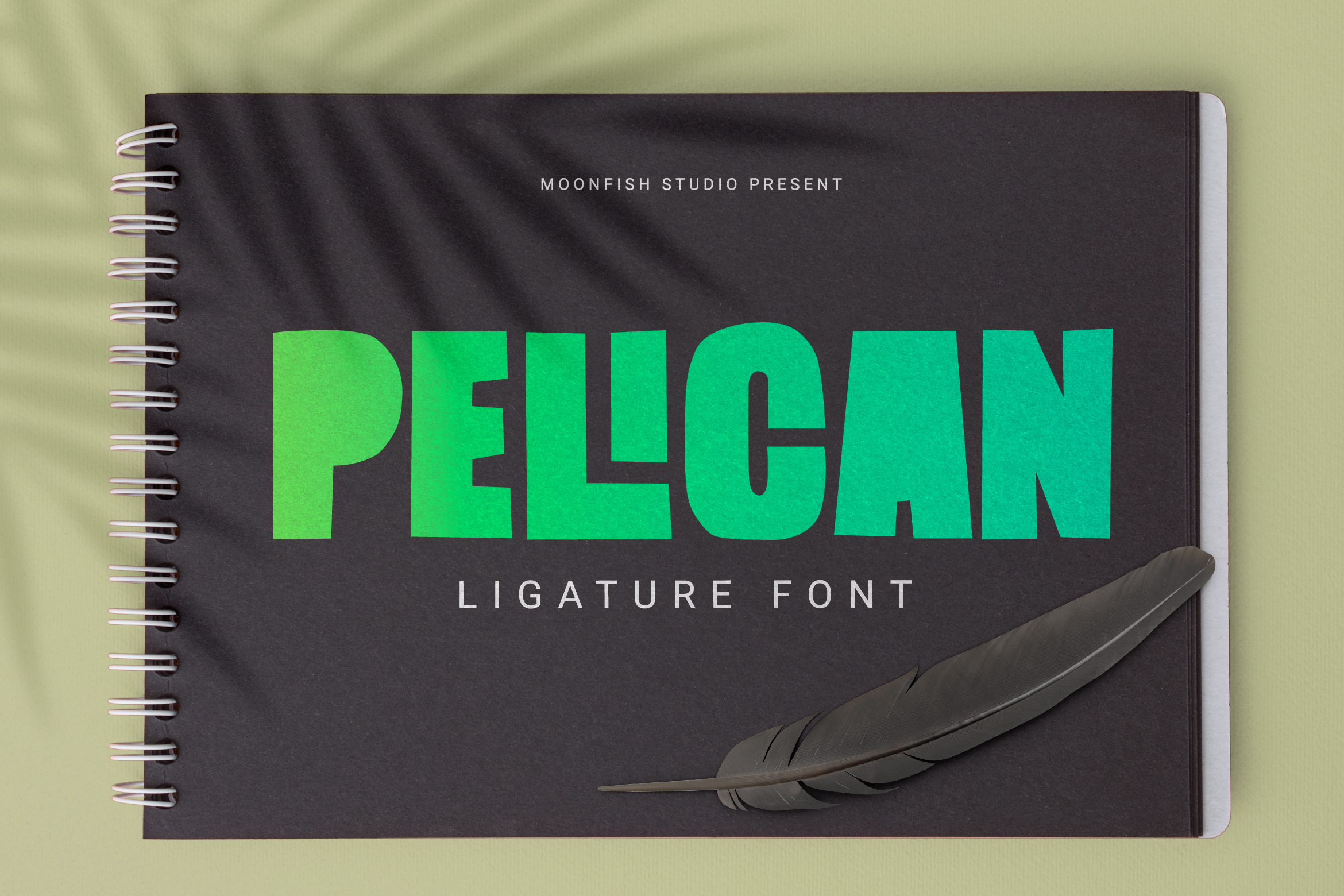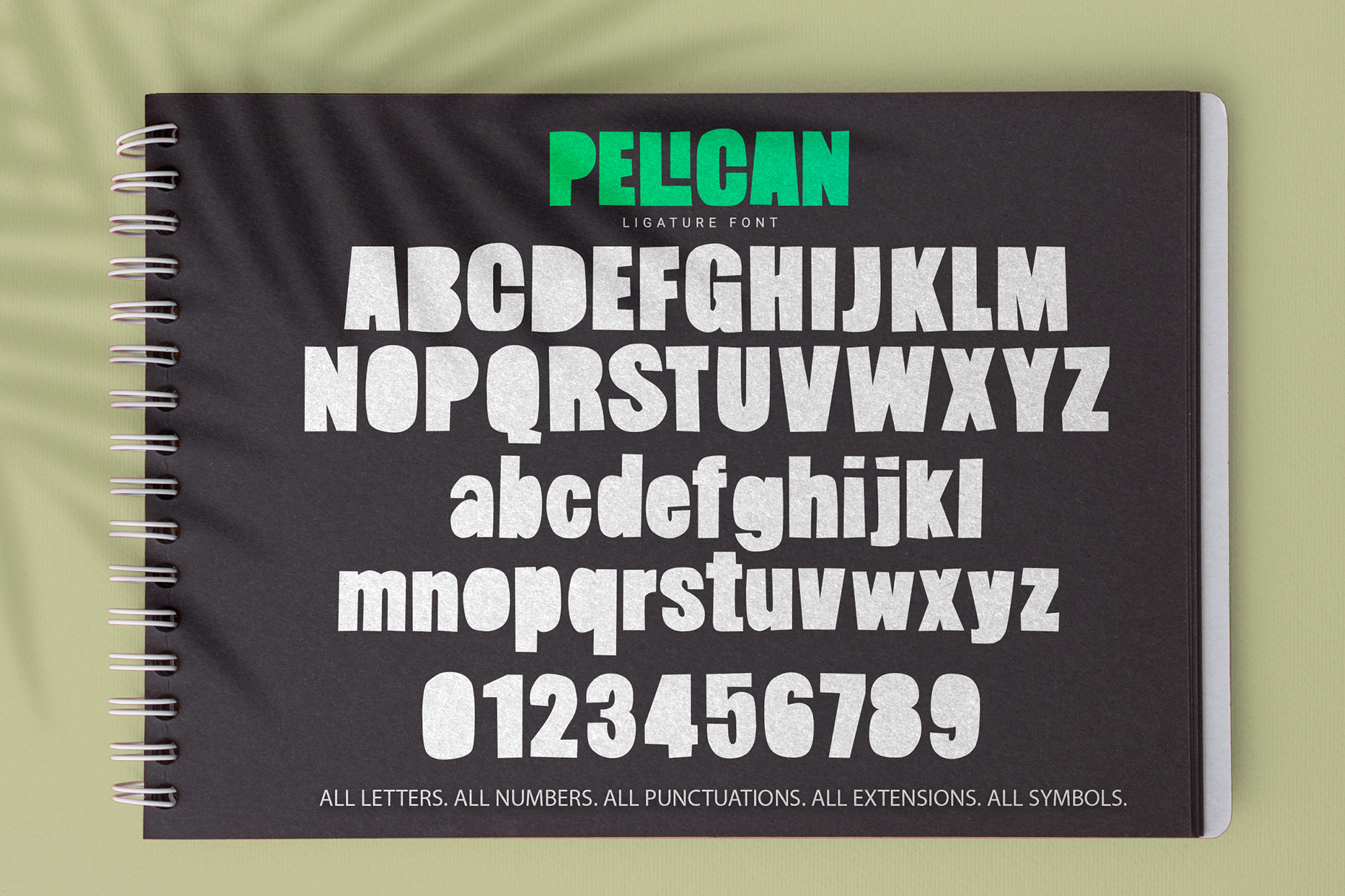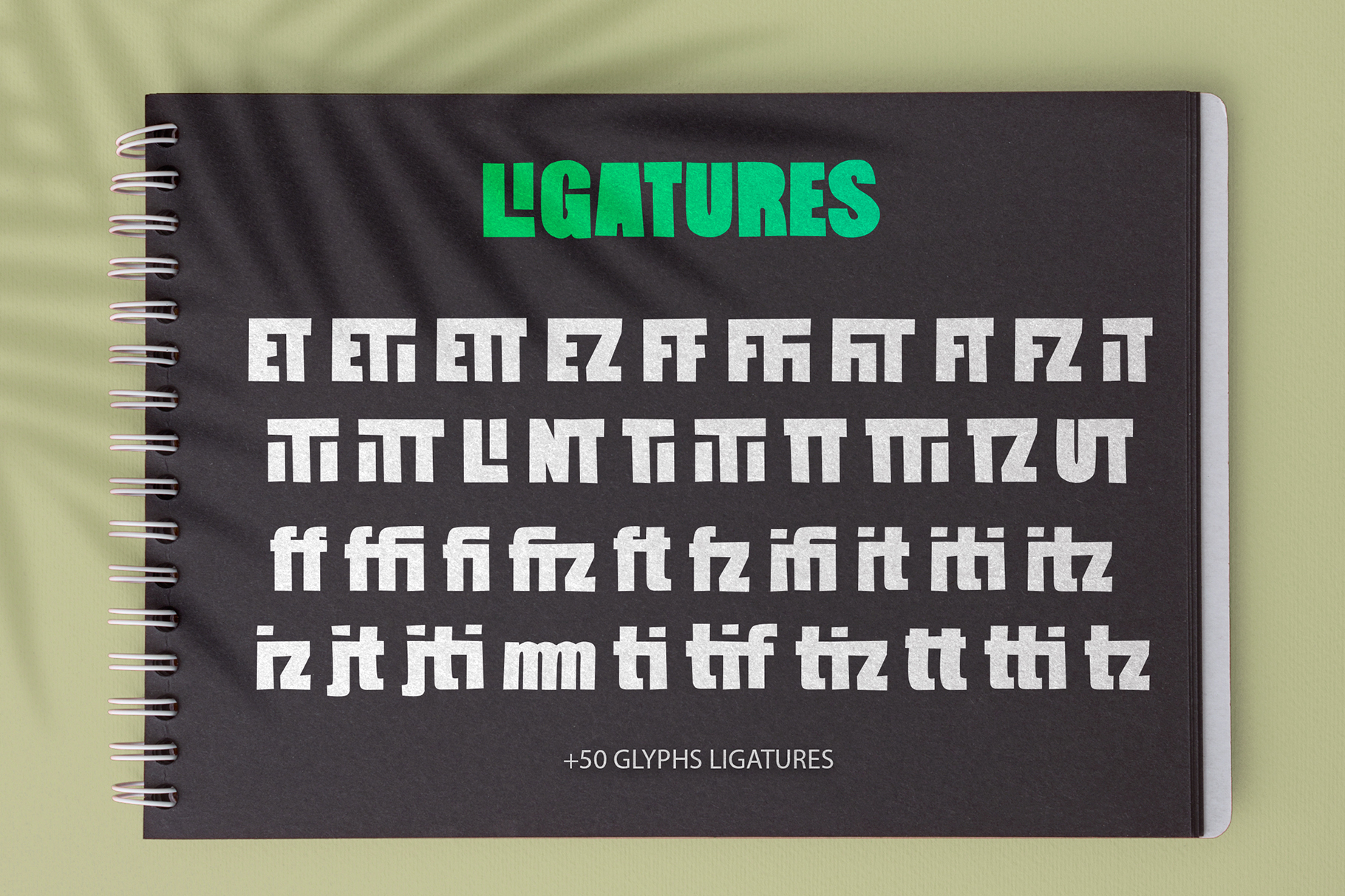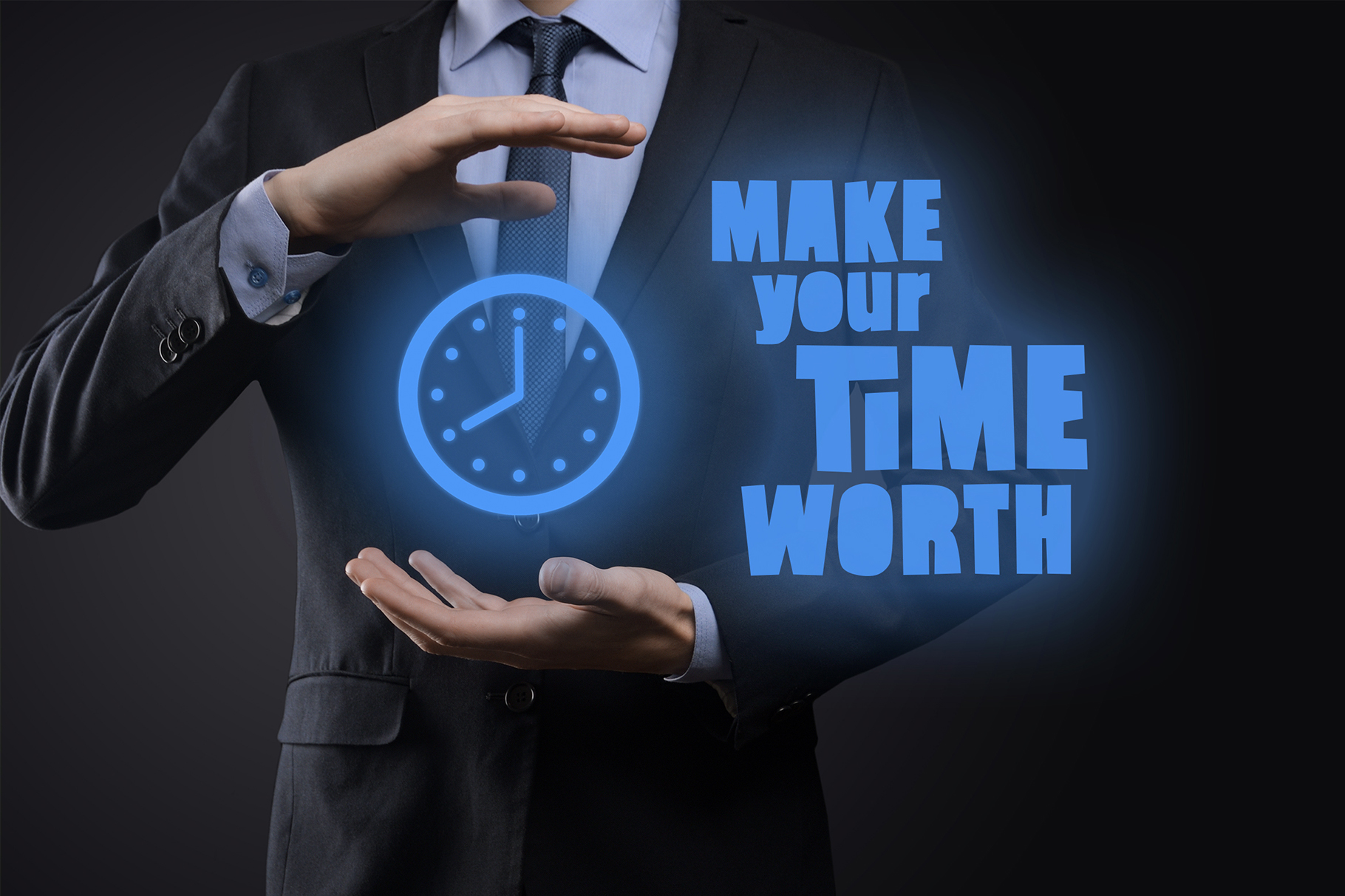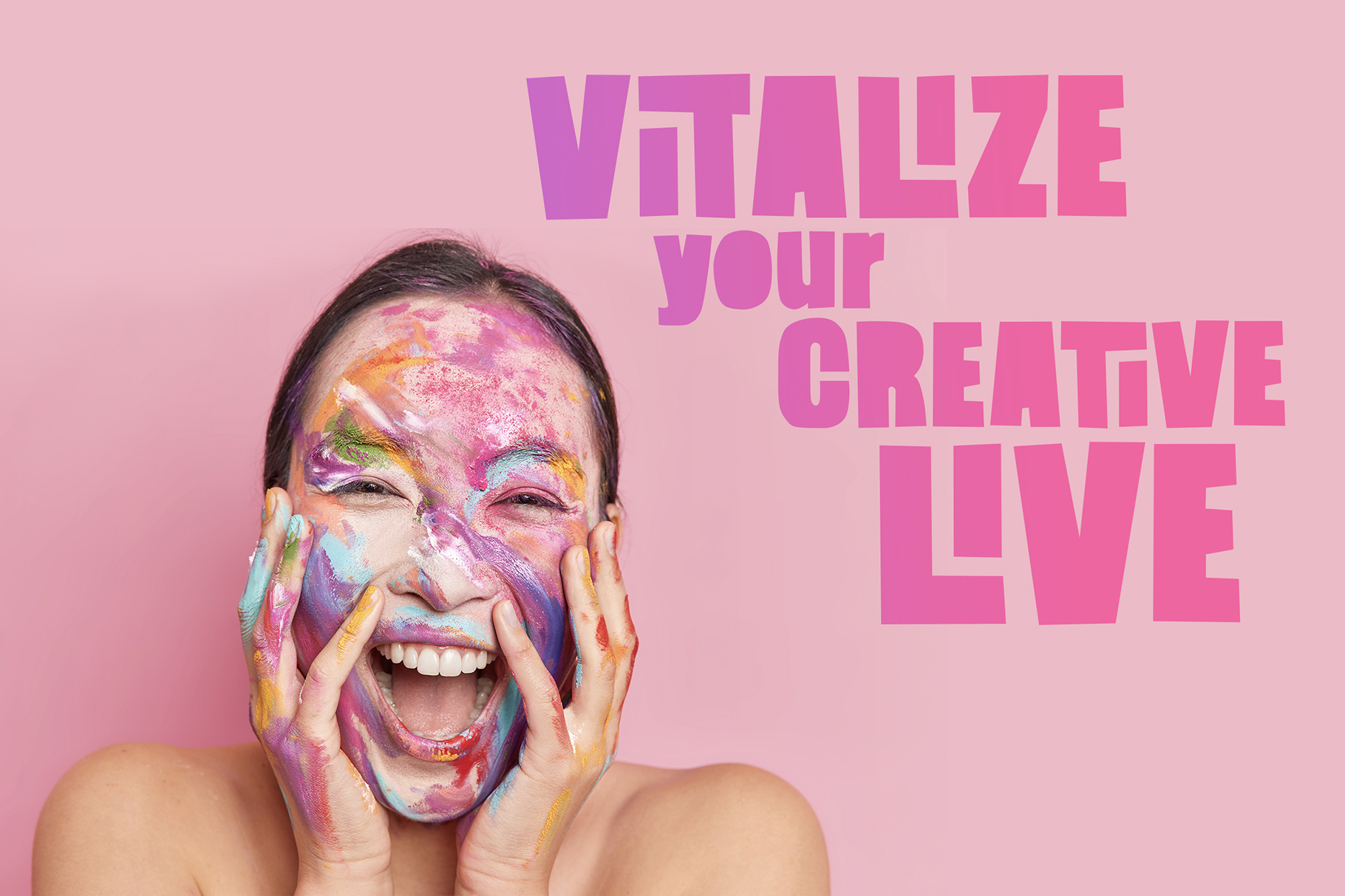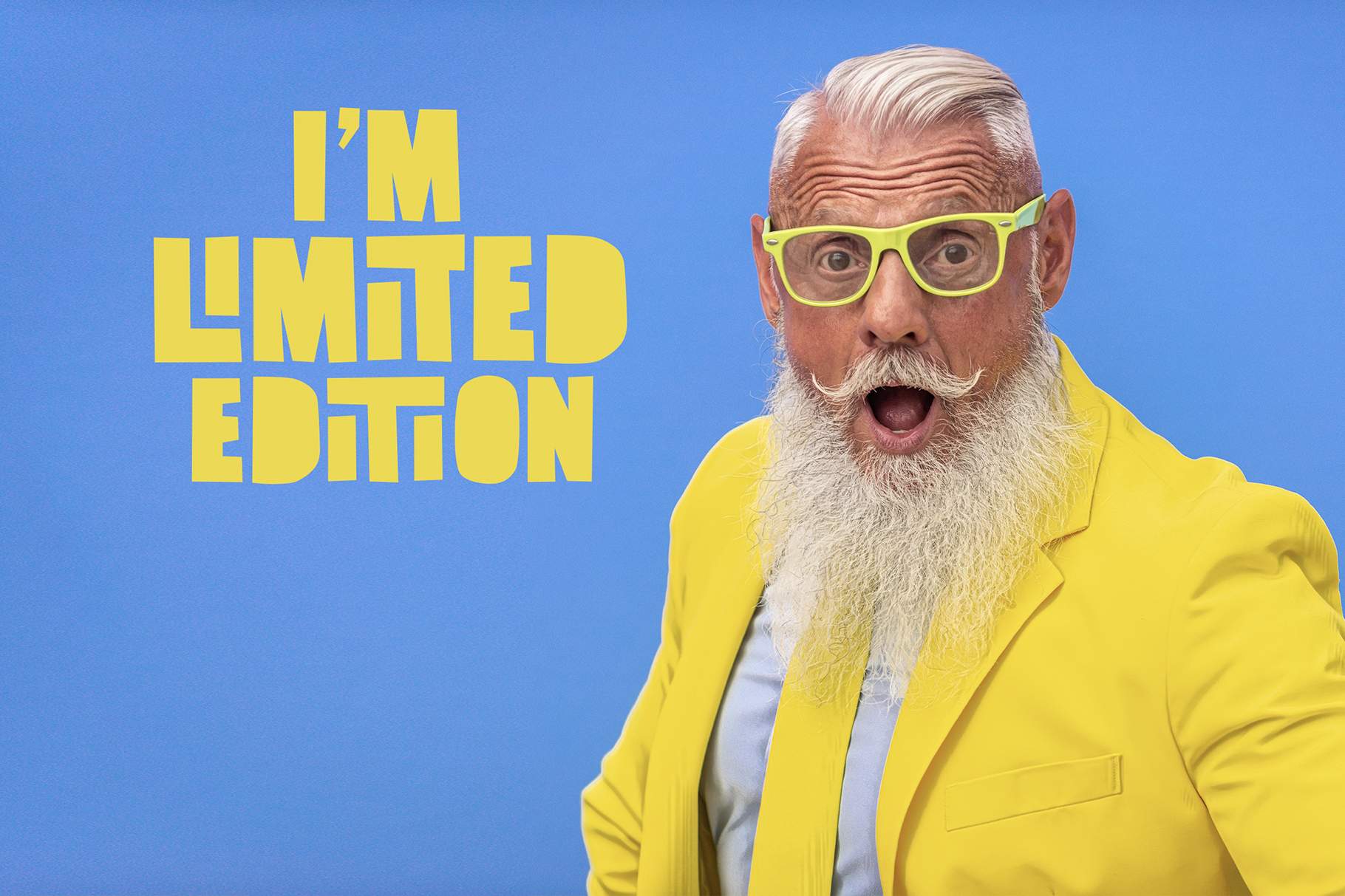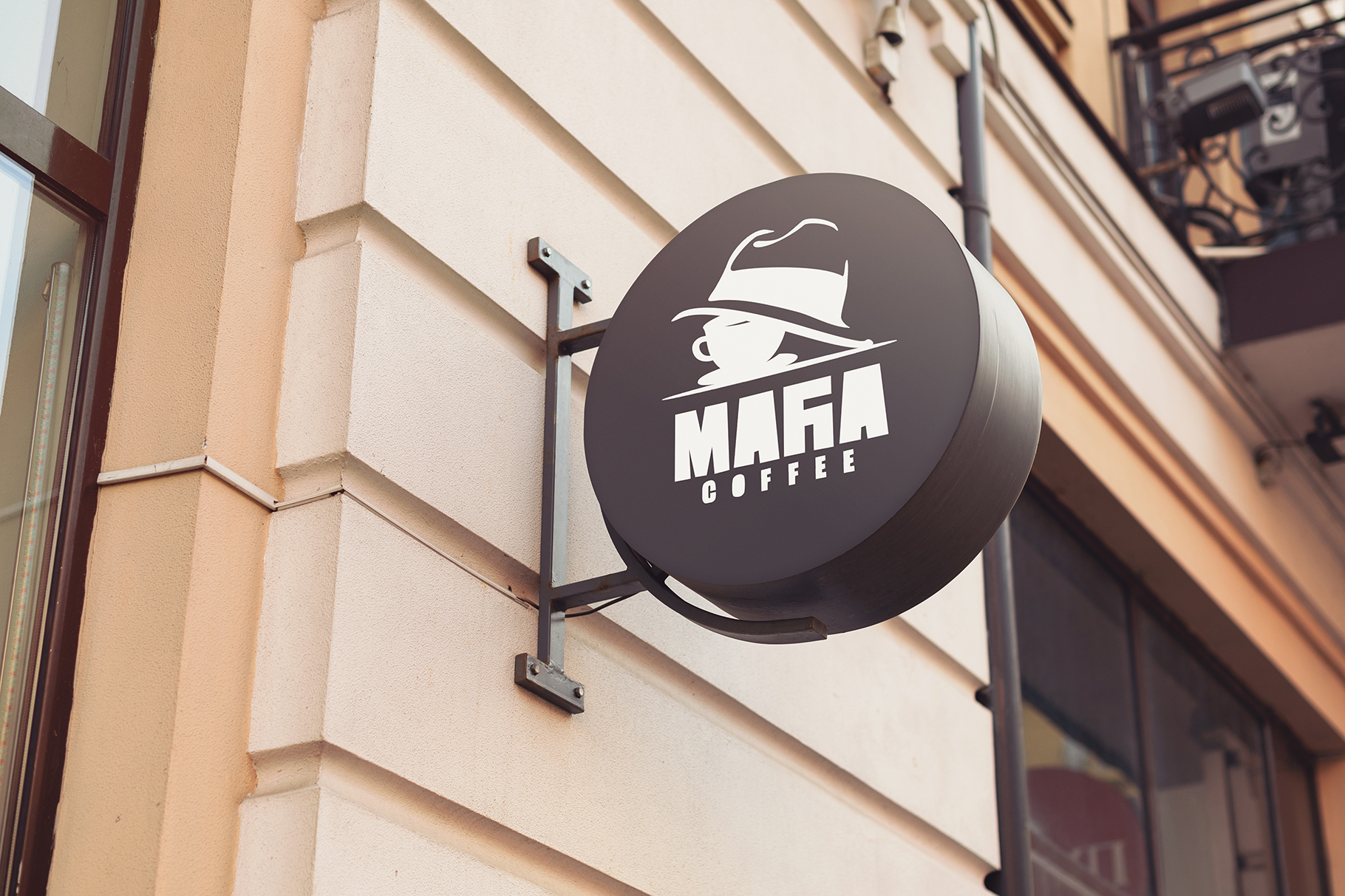
Pelican is a handwritten ligature font family with a cheerful and unique look. A unique opportunity to create a creative design.
- Modern Glyphs Ligatures